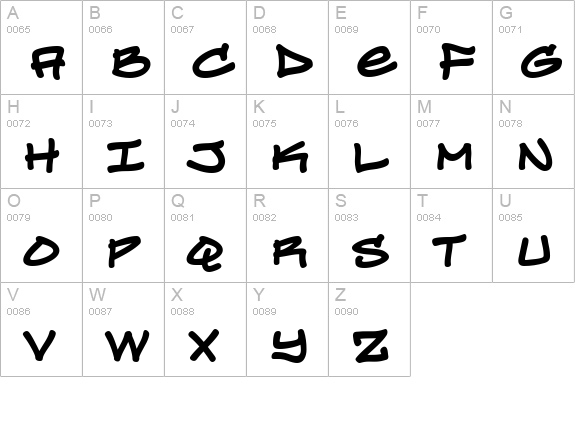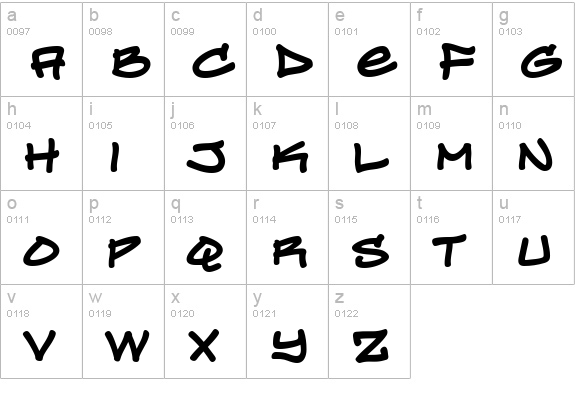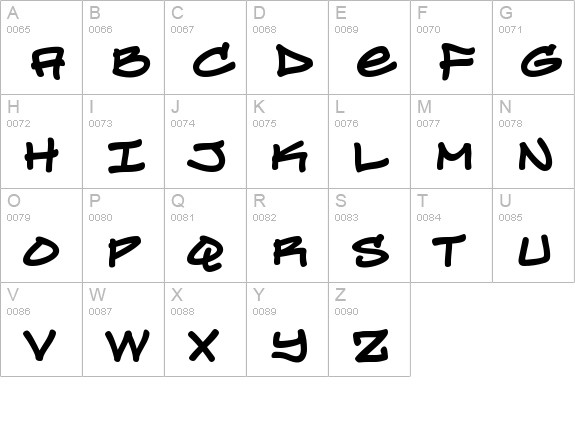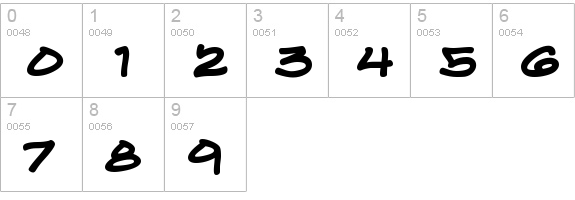
Turntablz BB Bold Font Details
Turntablz BB Bold is a strong, high-contrast variant in the Turntablz typeface family \xE2\x80\x94 well suited to headlines, attention-grabbing titles, and strong calls-to-action.